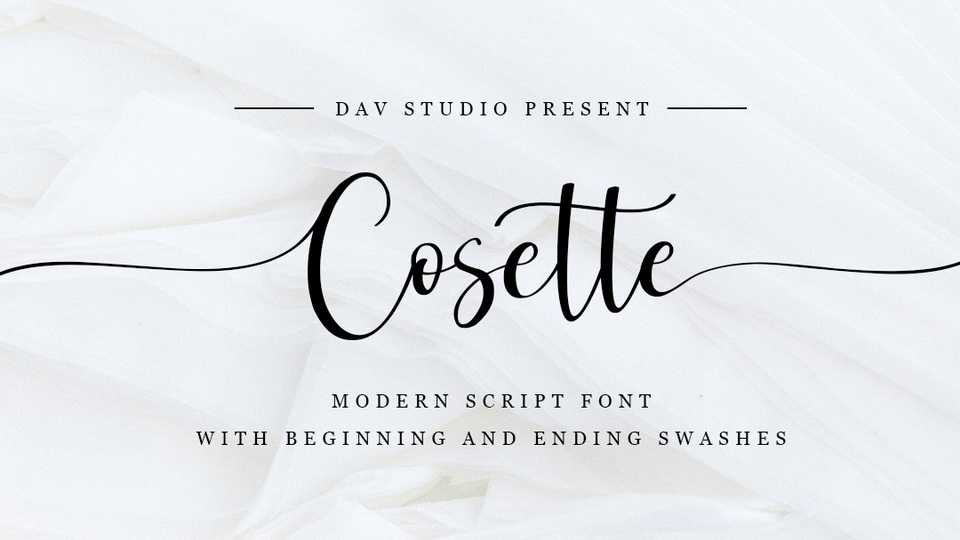
Download Cosette font, a beautiful modern script with beginning and ending swashes. Cosette is suitable for branding, wedding invitations, logos, mockups, and for your DIY projects.
Designer: Dav Studio